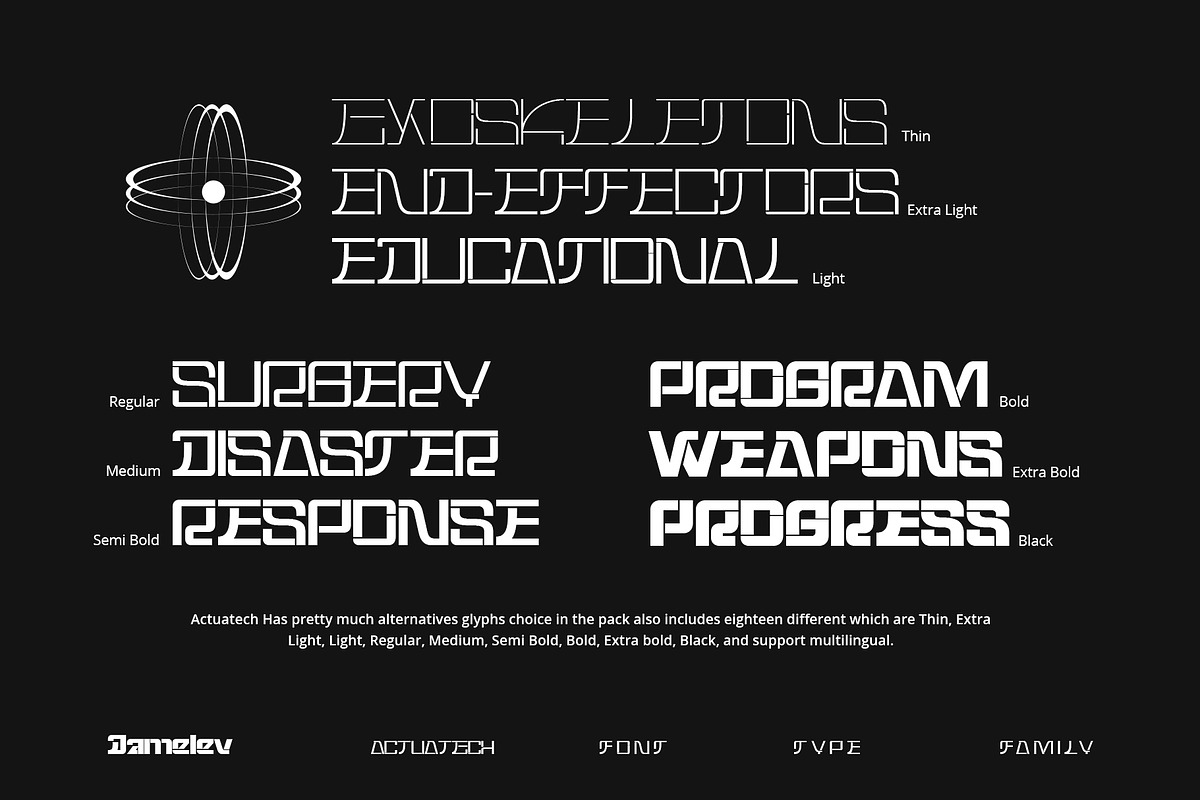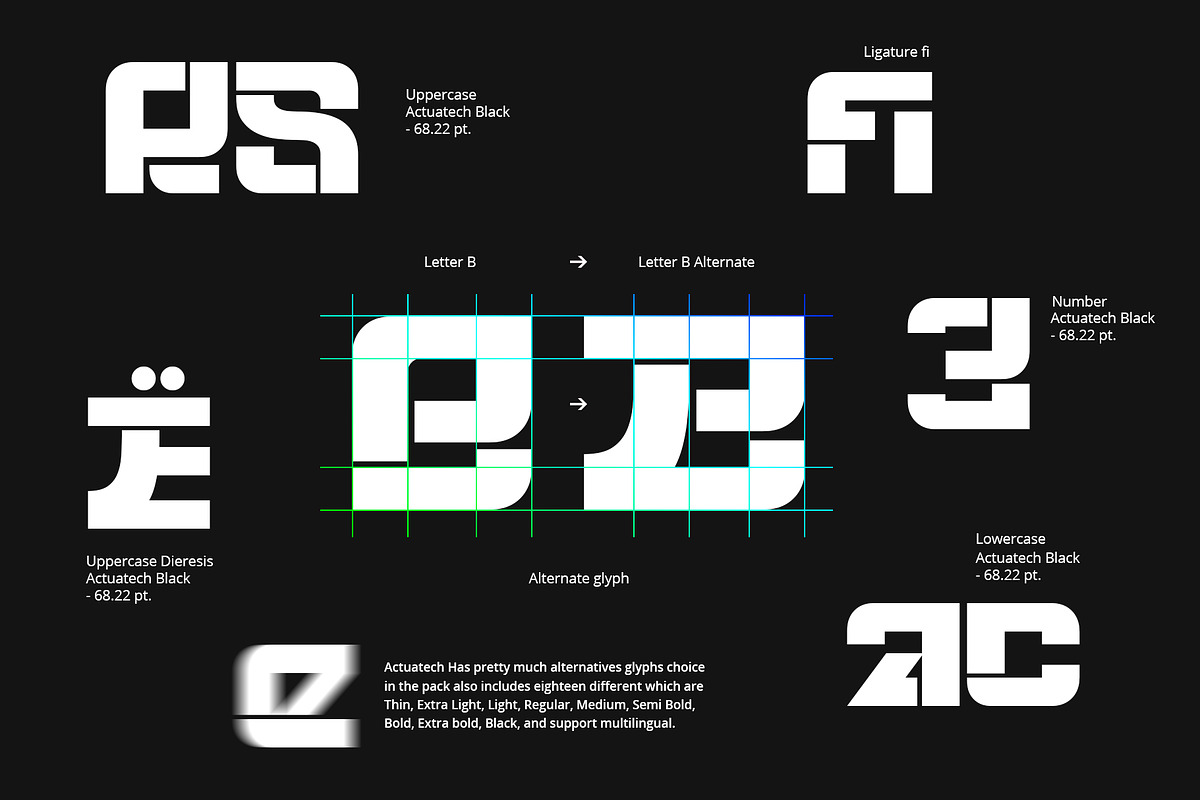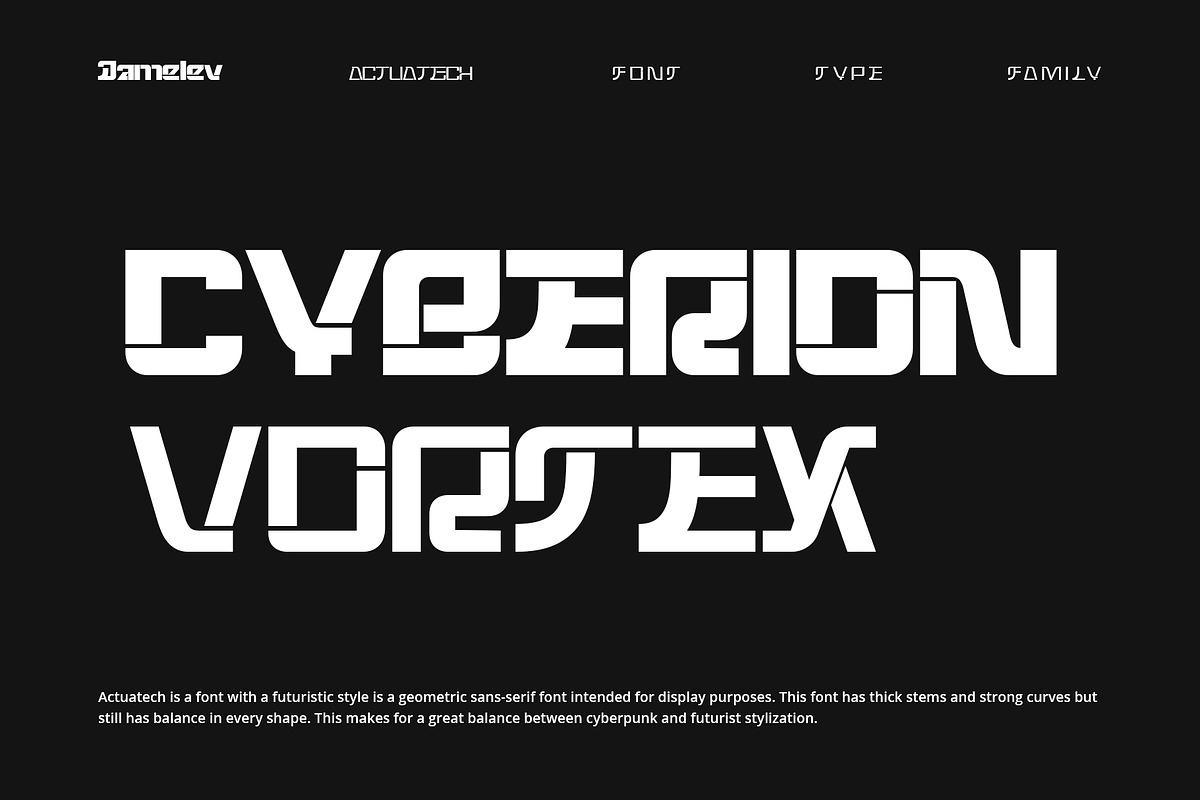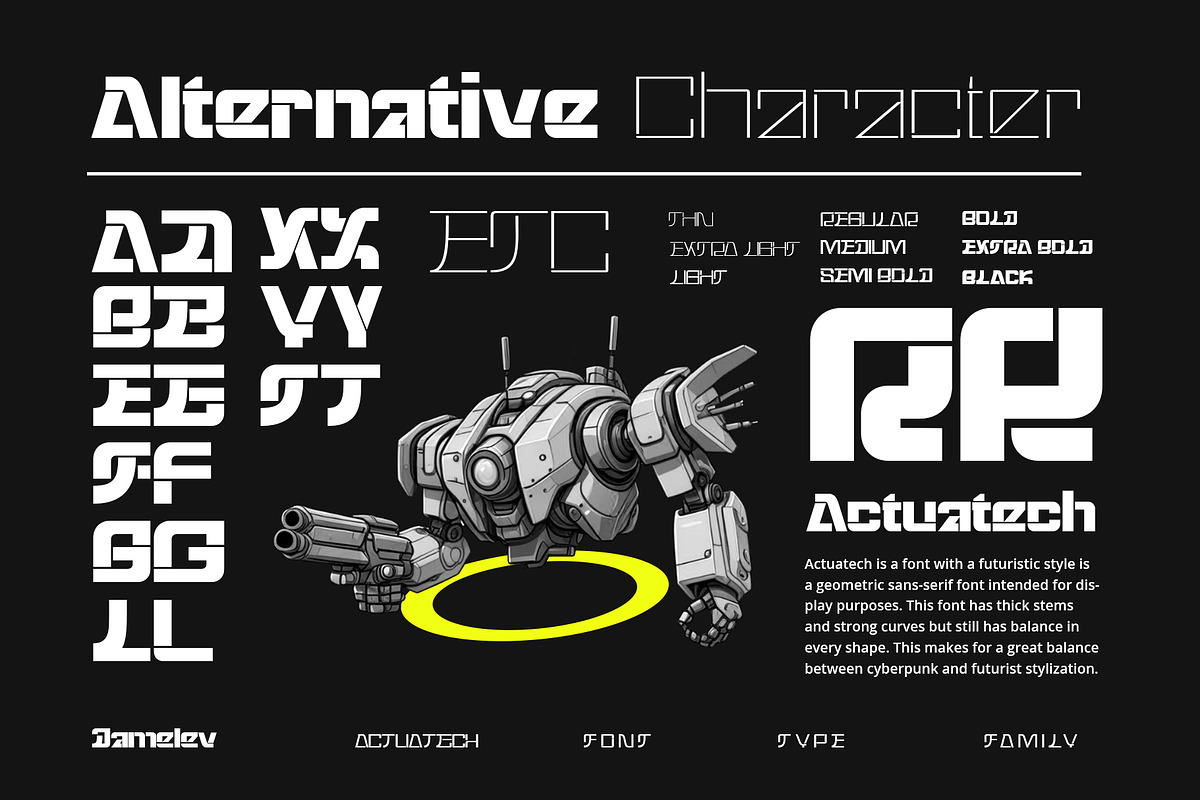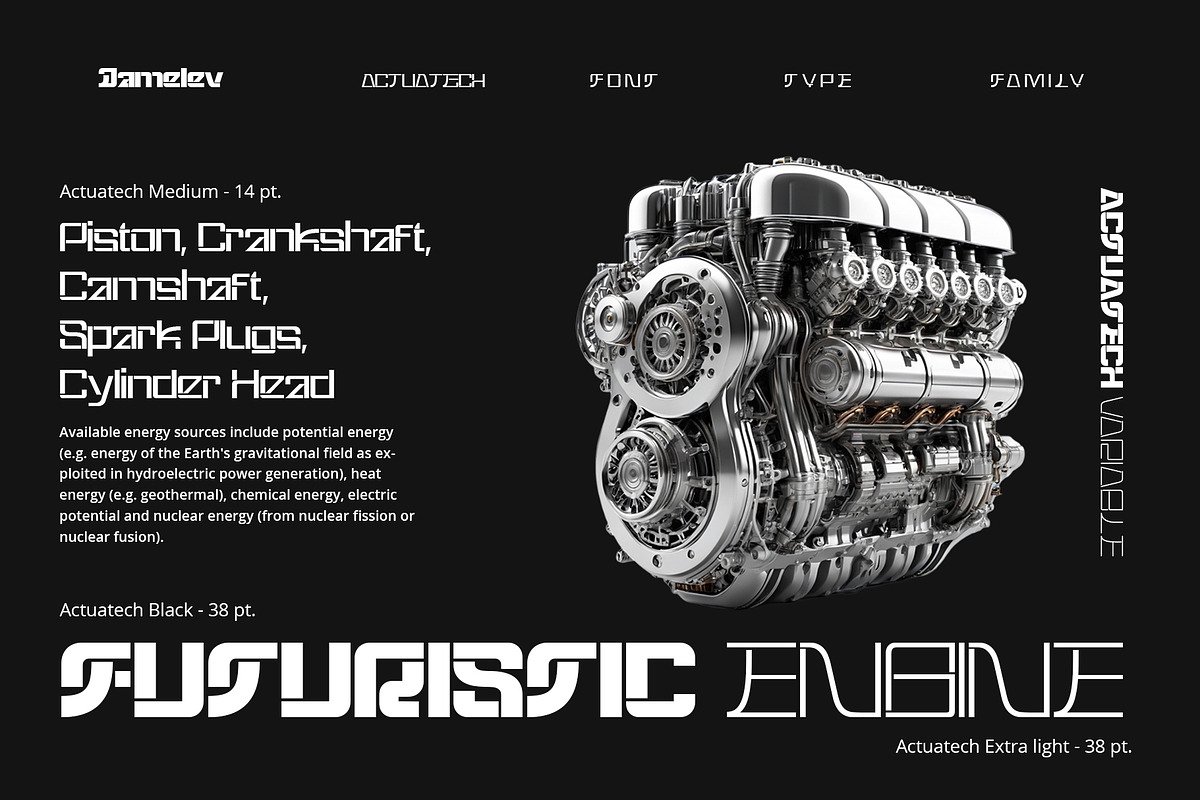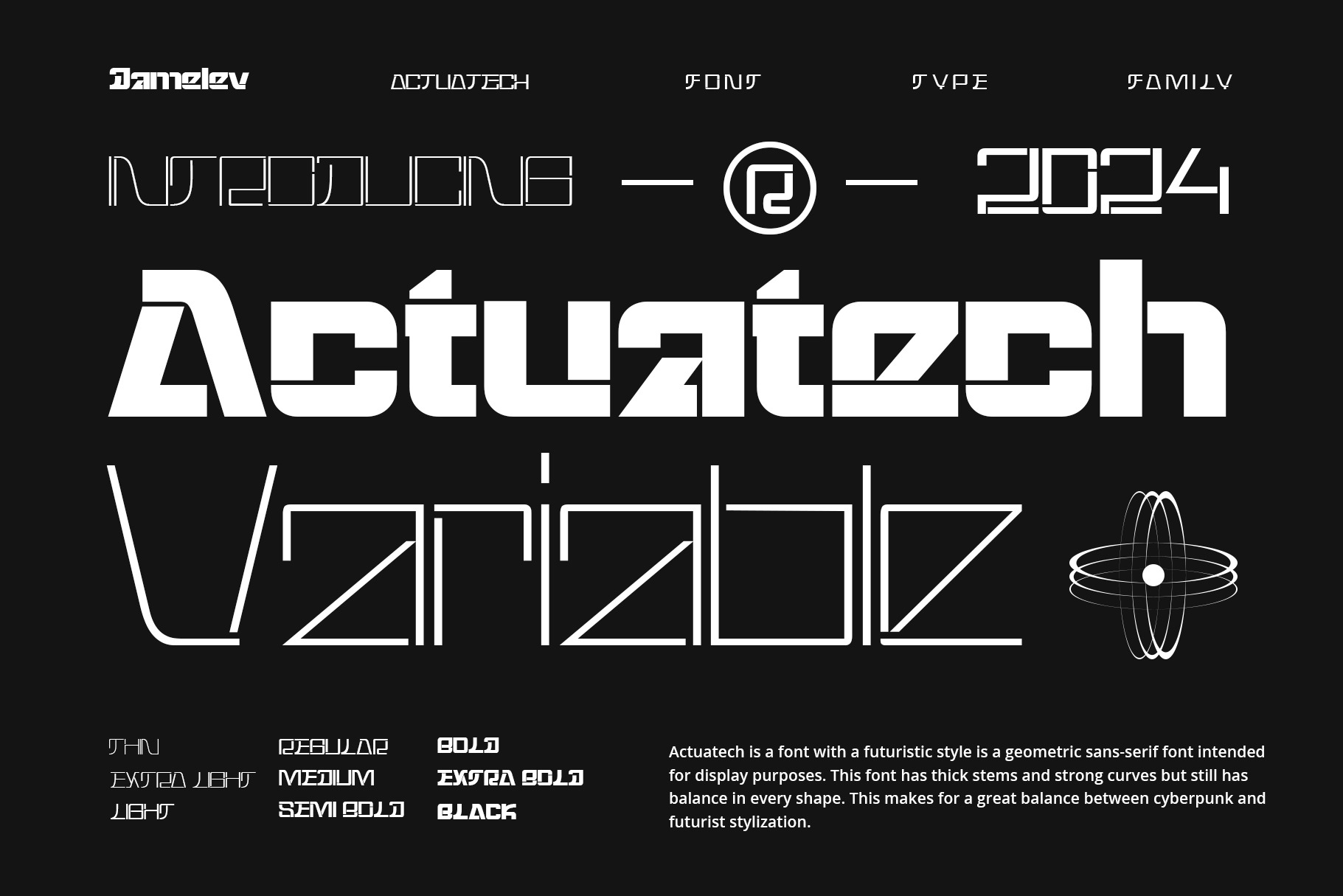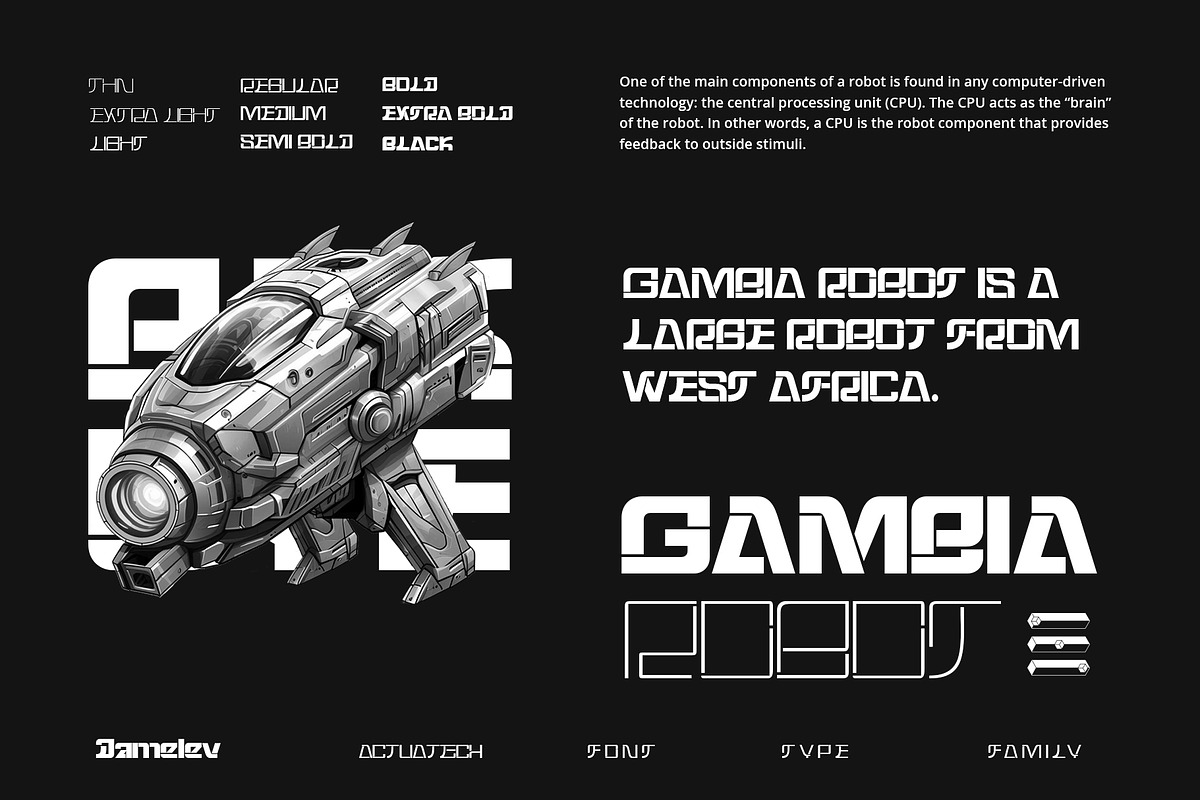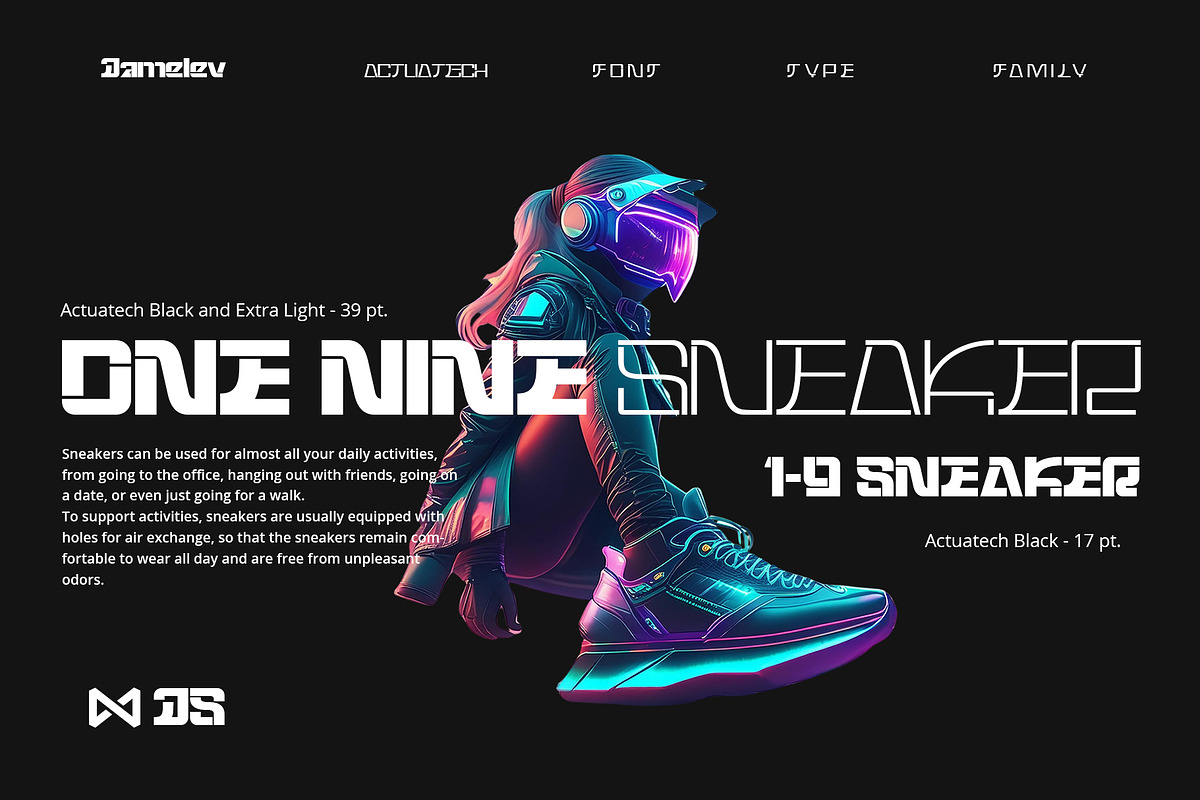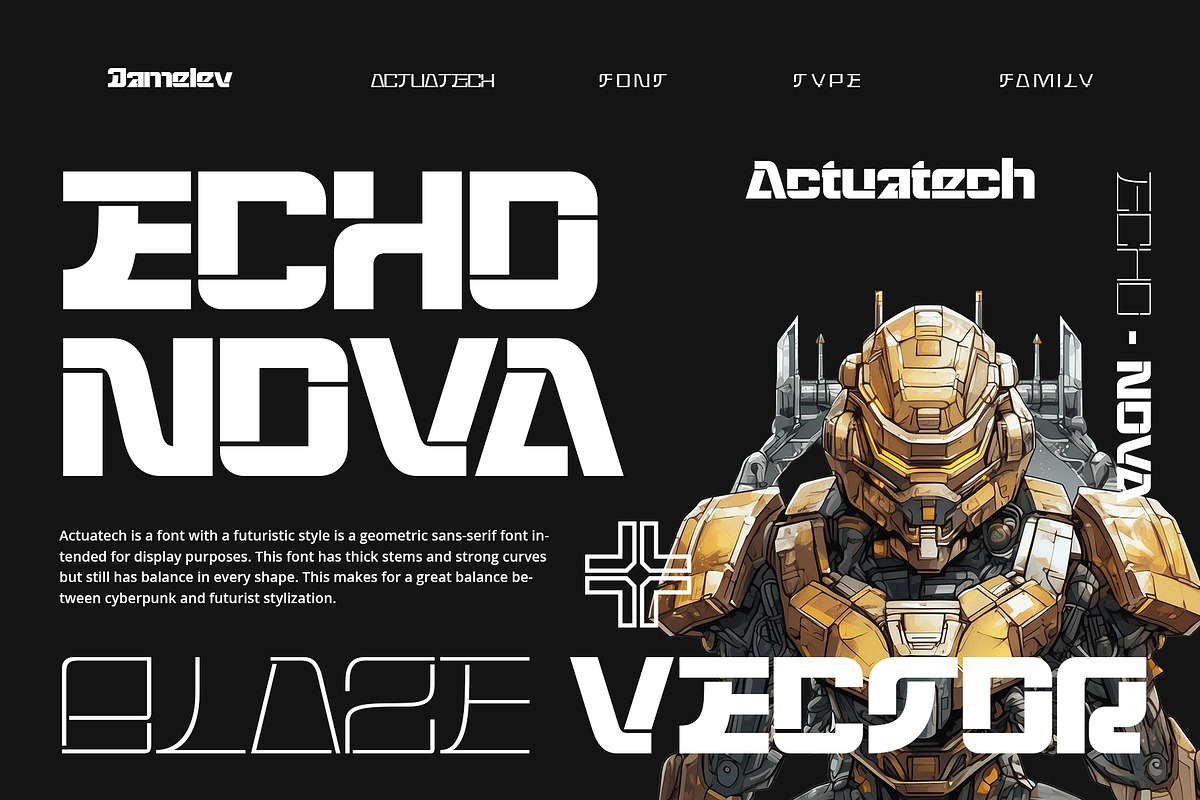
Actuatech Variable Font
Actuatec is a font with a futuristic style is a geometric sans-serif font intended for display purposes. This font has thick stems and strong curves but still has balance in every shape. This makes for a great balance between cyberpunk and futurist stylization. It features four weights (Thin, Extra light, Light, Regular, Medium, Semi bold, Bold, and black). Actuatech has pretty much alternatives glyphs choice in the pack and support multilingual.